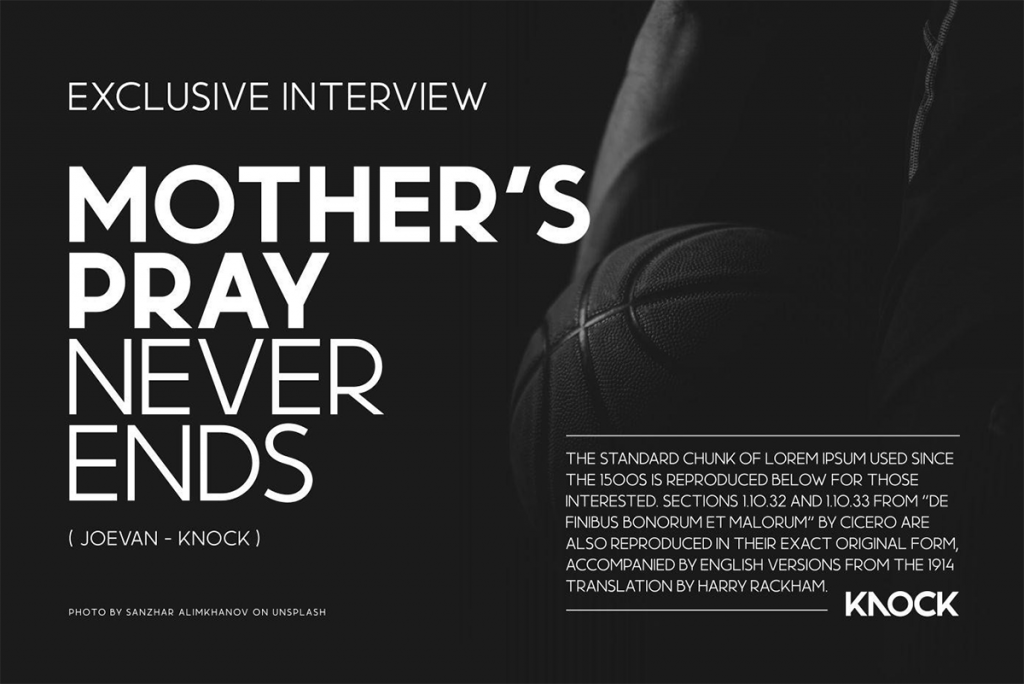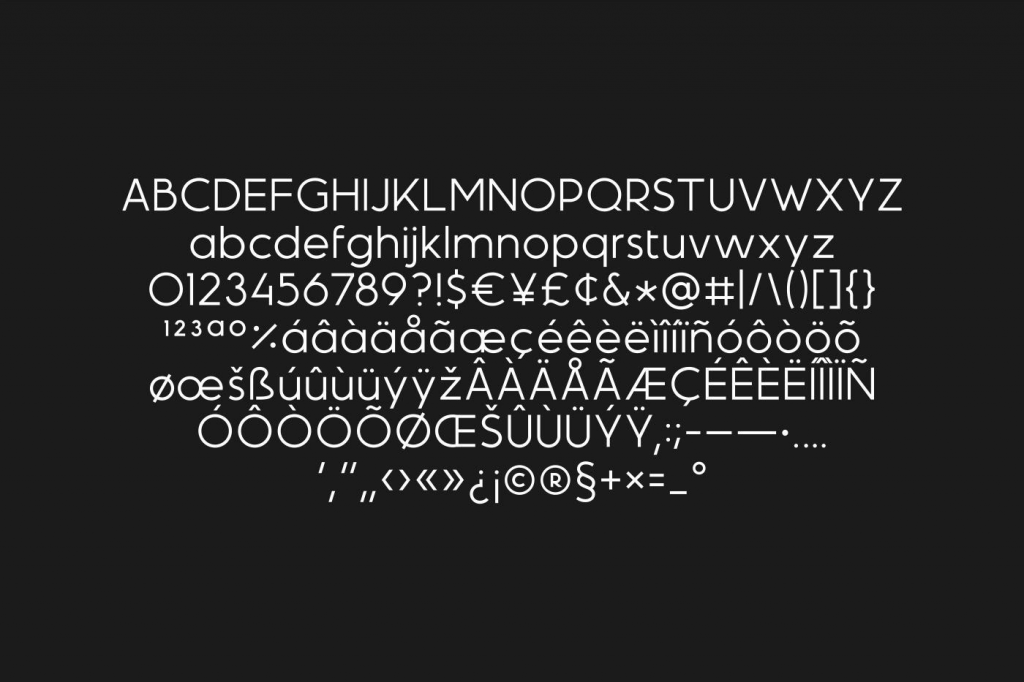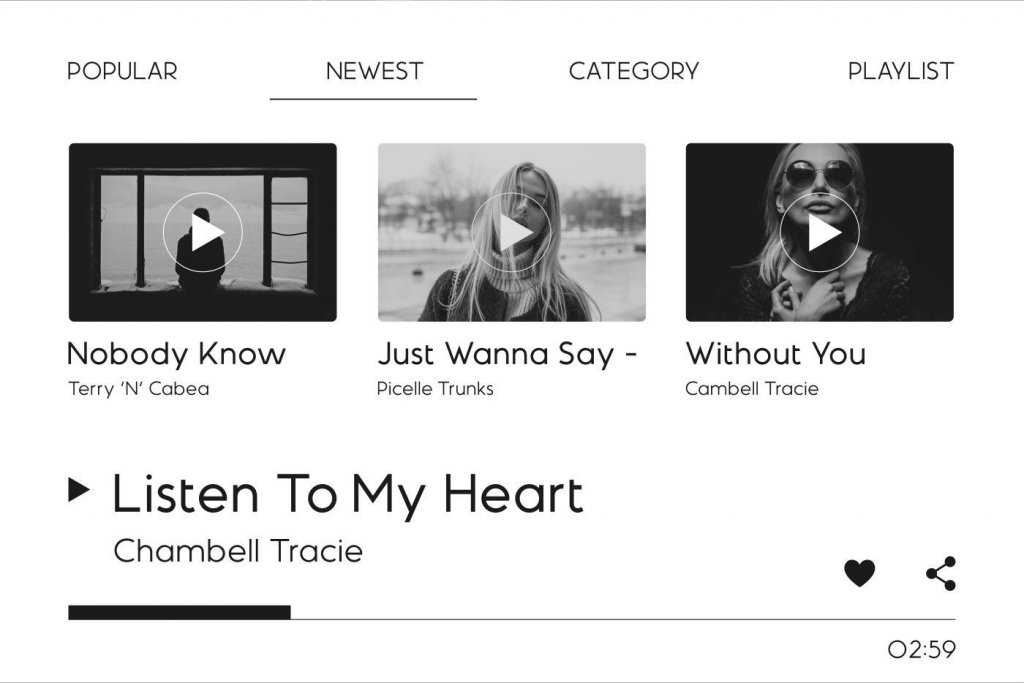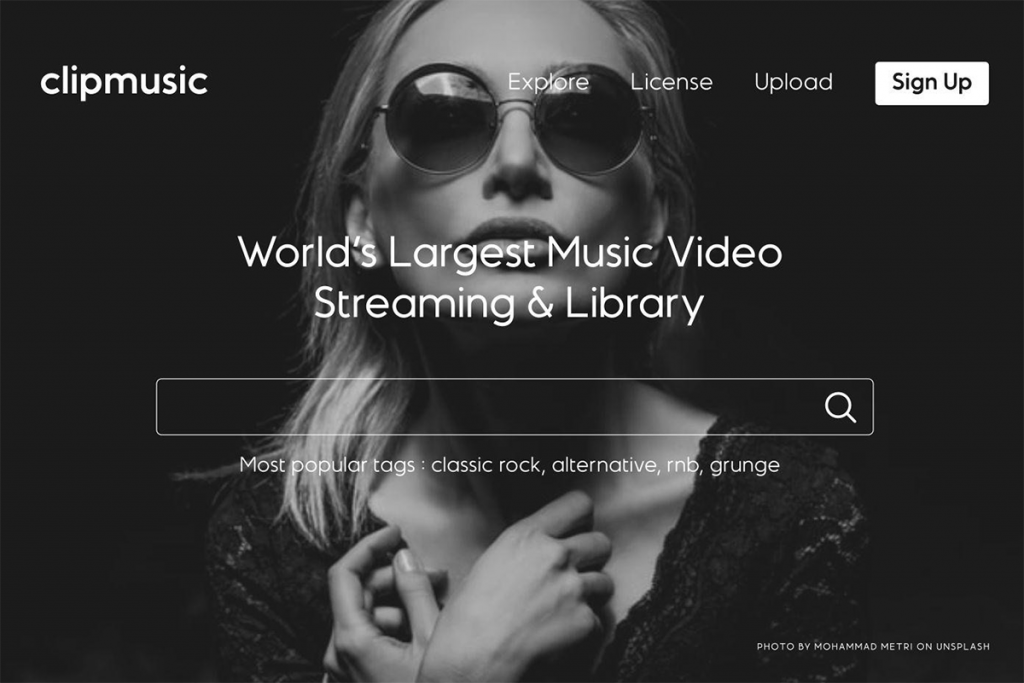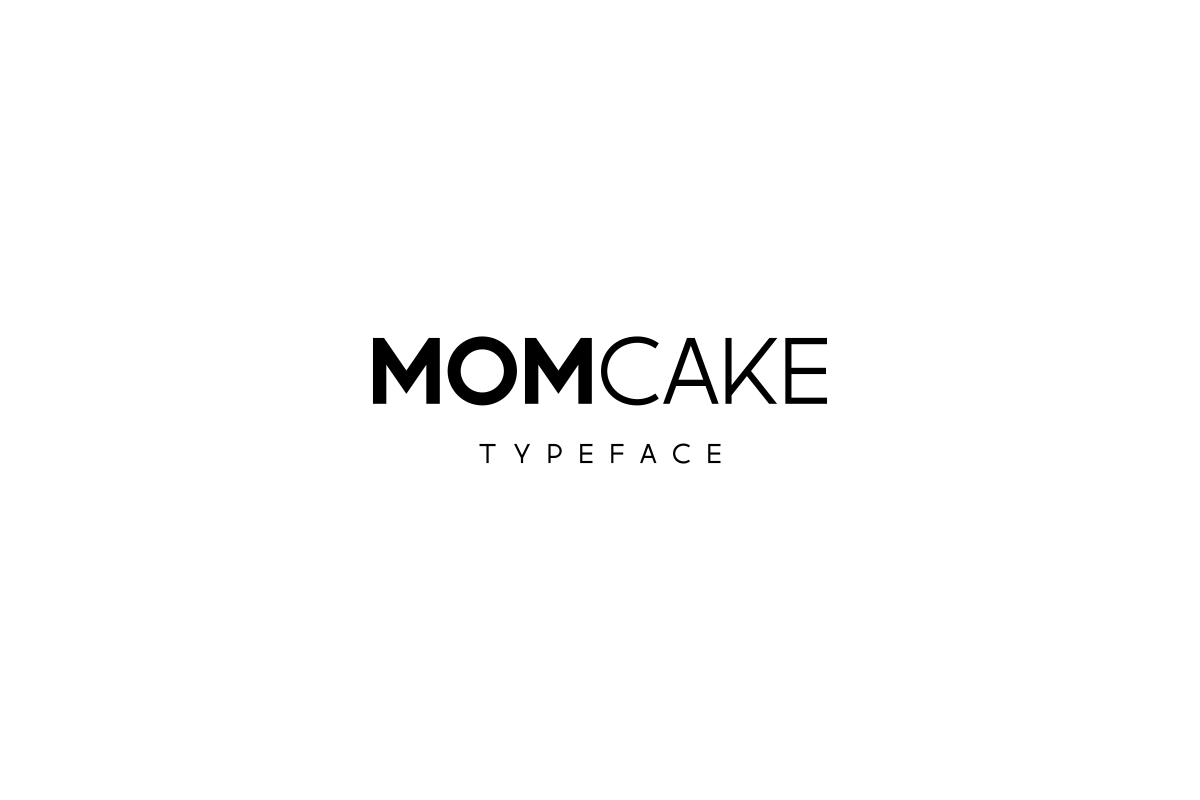
Momcake Sans: A Free Font
Momcake Sans is a free & latest font work by Rivian Art. This font appear chic with its geometrical and elegant look that is simply stunning! As you can see, this font is suitable for various project, from fashion magazine, website, editorial, to display prints as well.
Font Type: Sans Serif